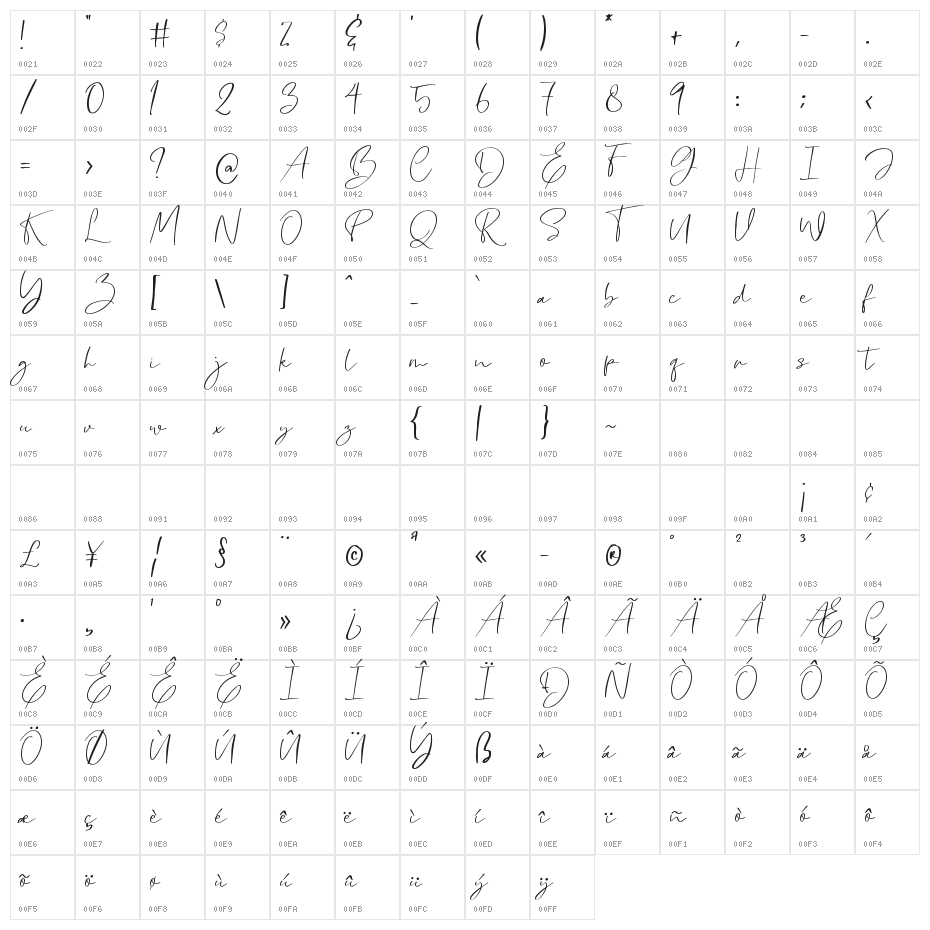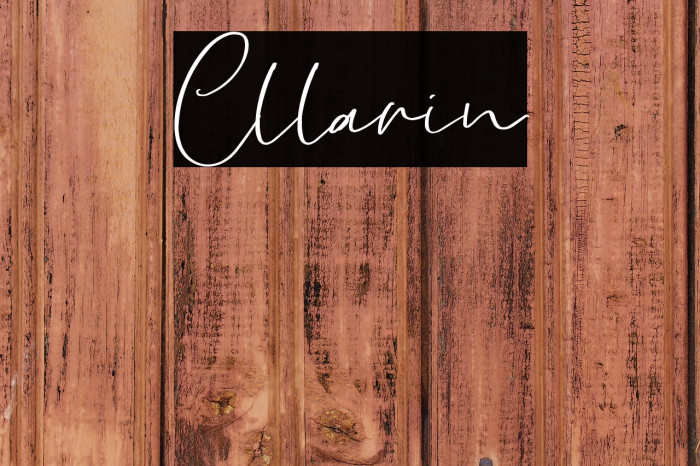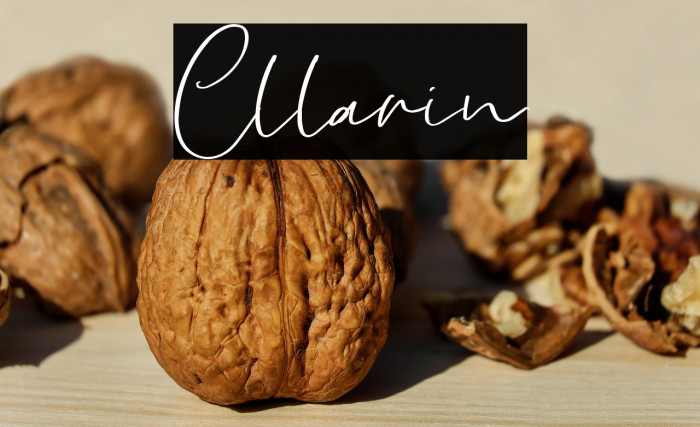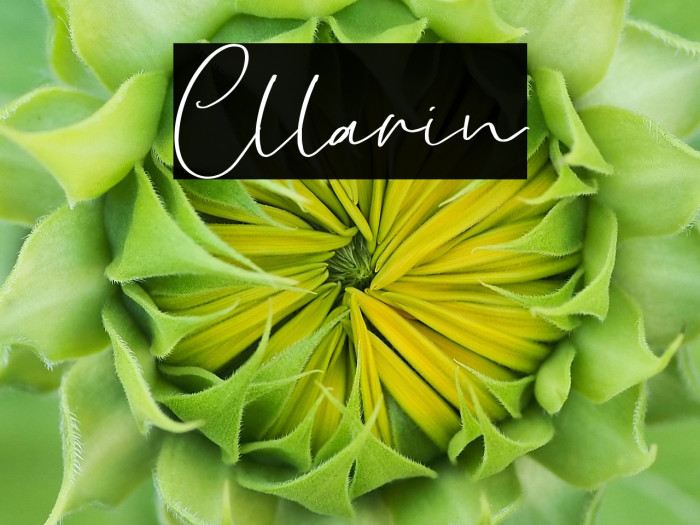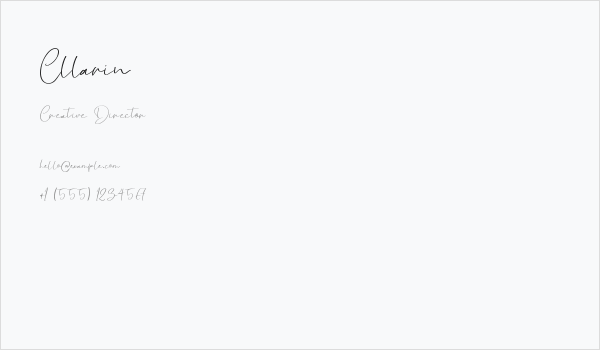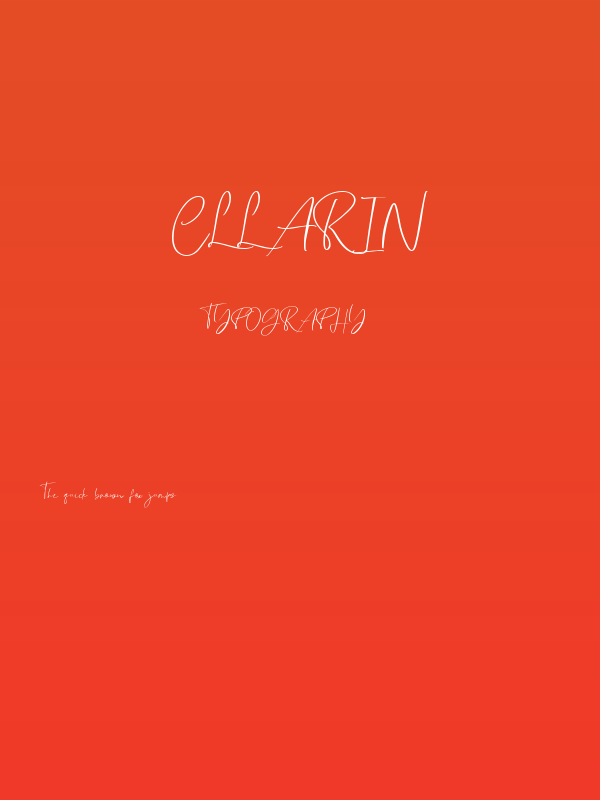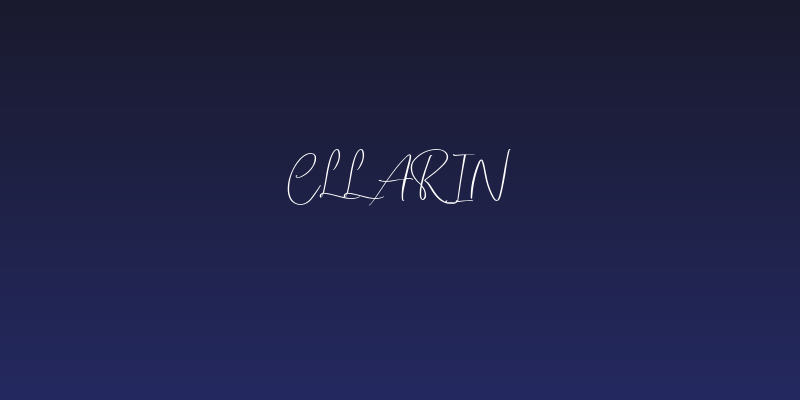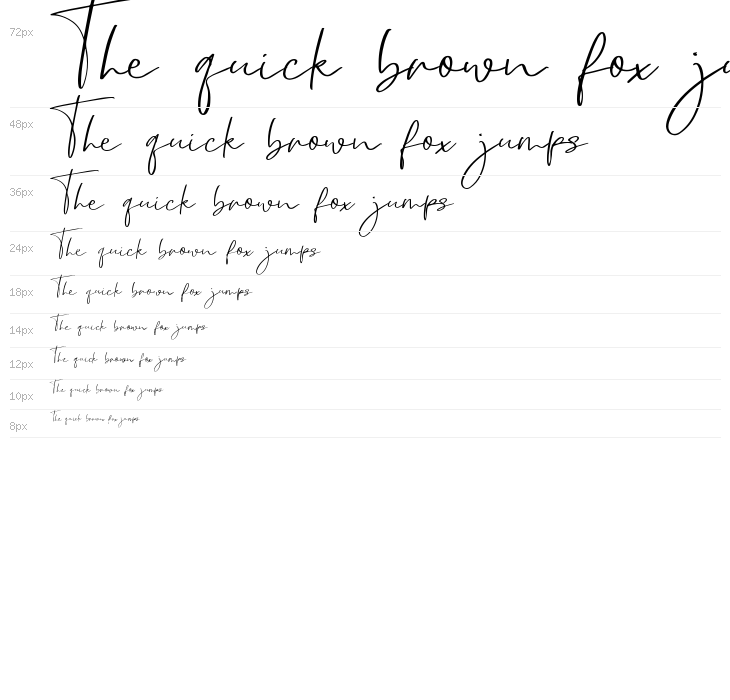
Cllarin Font
Cllarin Description
This font features an elegant and flowing script style, characterized by its smooth, continuous strokes and a handwritten appearance. The uppercase letters exhibit a graceful, looping form, while the lowercase letters maintain a consistent fluidity, enhancing the overall aesthetic. The numerals are crafted with a similar flair, ensuring a cohesive look across all characters. Special characters are thoughtfully integrated, maintaining the font's artistic and sophisticated feel. This font is perfect for adding a personal touch to any design project, offering a sense of elegance and creativity.
| Overall Style | Elegant, Artistic |
| Use Case | Logos, Invitations, Decorative text |
| Proposed Projects | Ideal for wedding invitations, greeting cards, branding, and logo design. |